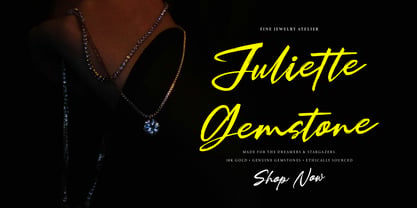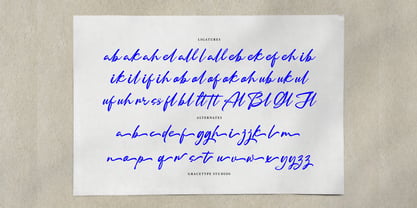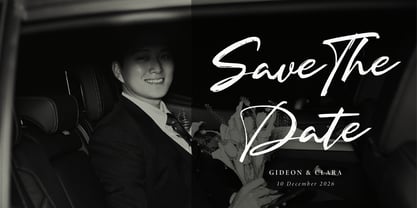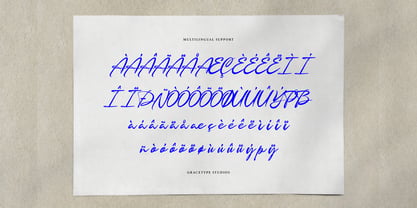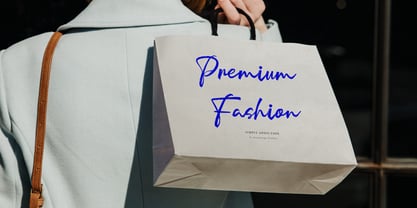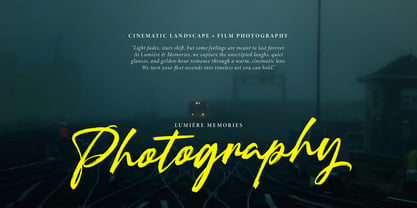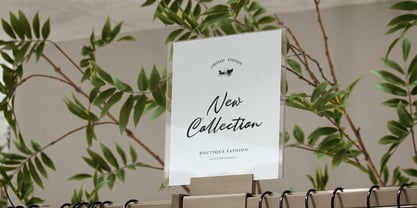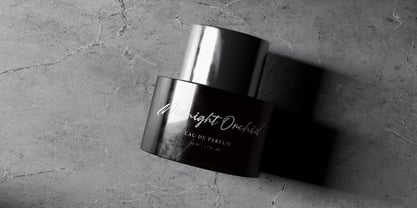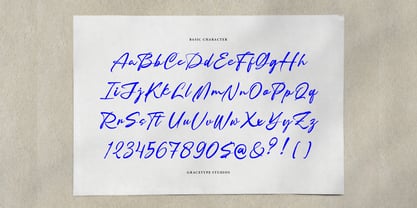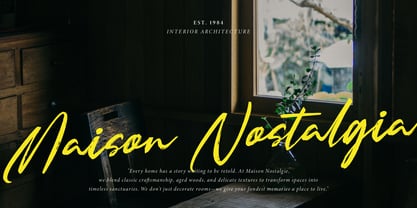
Simply Addiction
von Tini Fitriani
Die Schriftfamilie Simply Addiction wurde von Dede Nugraha entworfen und von Tini Fitriani veröffentlicht. Simply Addiction enthält 2 Stile und Familienpaketoptionen. Mehr über diese Familie
Simply Addiction | Brush Handwritten Script, from Gracetypestudio, suitable for any projects such as: logos, branding projects, homeware designs, product packaging, mugs, quotes, posters, shopping bags, t-shirts, book covers, name card, invitation cards, greeting cards, label, photography, watermark, special events, and all your other lovely projects that need a Script taste.
Designer: Dede Nugraha
Foundry: Tini Fitriani